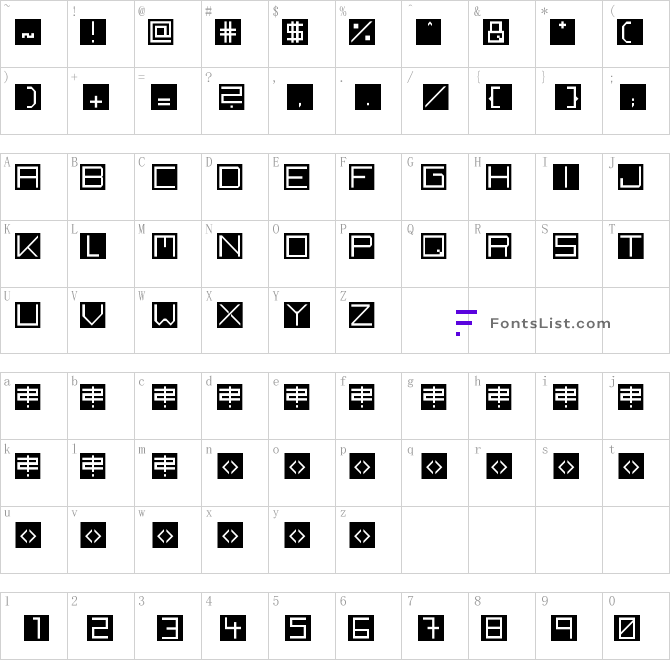
- Font Name:back to heavy coat fat ground
back-to-heavy-coat-fat-ground-Regular.ttf is a very beautiful artistic font, back-to-heavy-coat-fat-ground-Regular.ttf is widely used in the design and printing of various books and pictures,back-to-heavy-coat-fat-ground-Regular.ttf has a strong visual impact,back-to-heavy-coat-fat-ground-Regular.ttf is a commonly used font in newspapers, magazines and books, and is used in posters, e-commerce Poster design, store design, logo design, font design and other fields.back-to-heavy-coat-fat-ground-Regular.